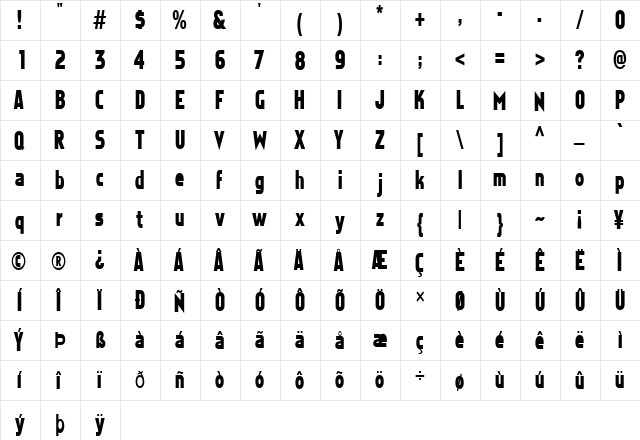
FZ BASIC 5 COND Normal
Design Context for FZ BASIC 5 COND Typeface
FZ BASIC 5 COND takes a measured approach to typography — its balanced proportions and neutral character make it a reliable workhorse for both digital and print work. Its narrow stance lets it pack a punch even in space-constrained designs.